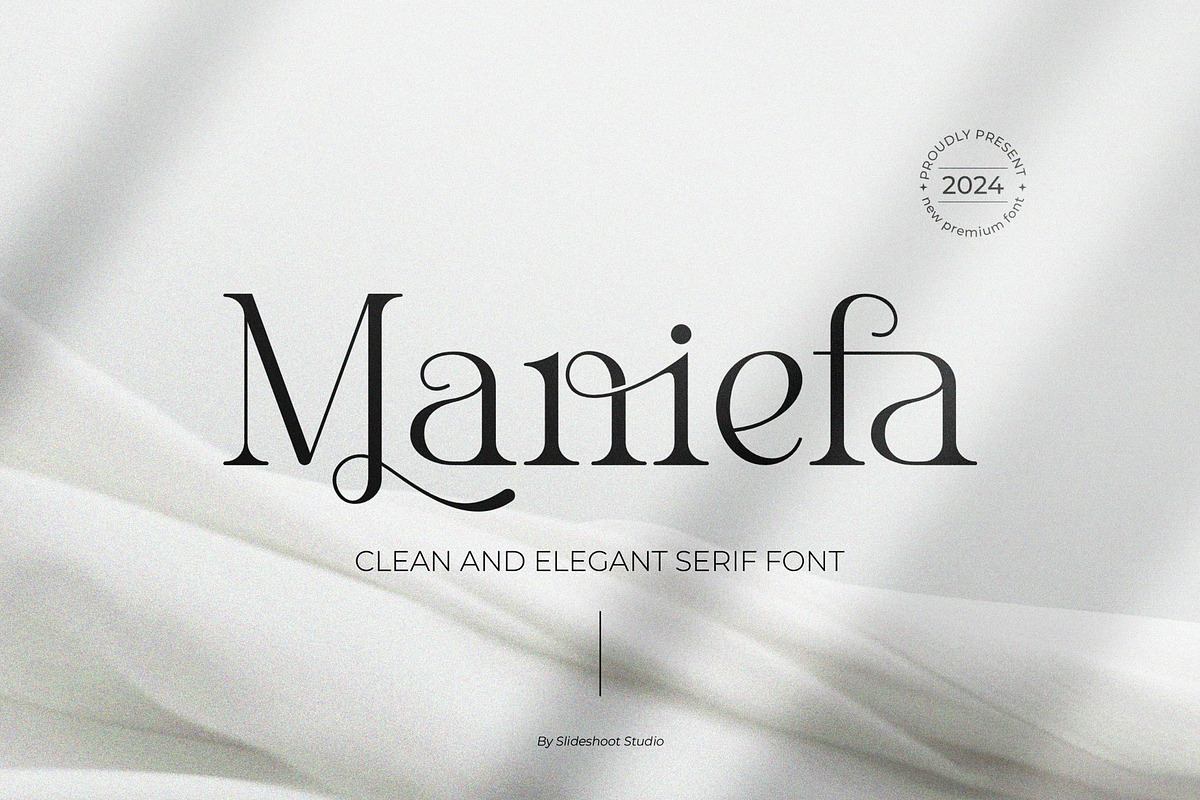
Maniefa || Elegant Serif Font Free Download
Maniefa || Elegant Serif Font Free Download is a refined and sophisticated typeface designed to bring elegance and class to your design projects. With its high contrast strokes, sharp serifs, and clean lines, Maniefa is perfect for luxury branding, editorial layouts, fashion, and high-end product packaging. Its timeless style ensures it stands out while maintaining readability and grace.
Using the Maniefa || Elegant Serif Font Free Download allows you to create designs that exude professionalism and modern elegance. Whether you are working on a premium logo, an editorial piece, or sophisticated event invitations, Maniefa adds a polished touch to your typography.